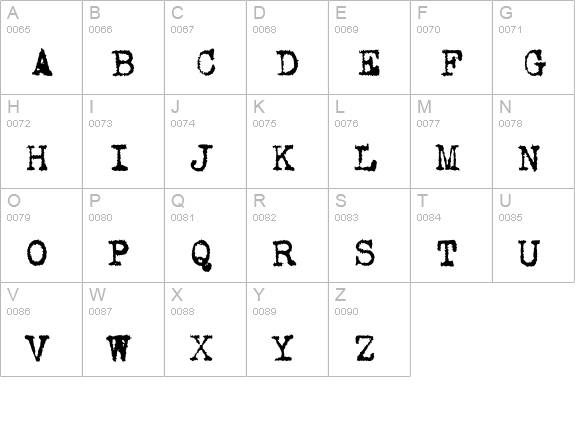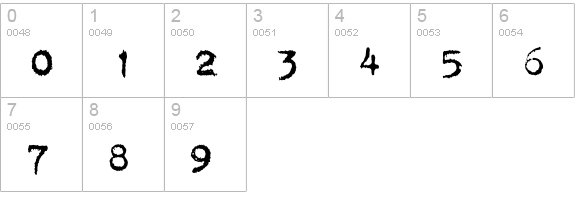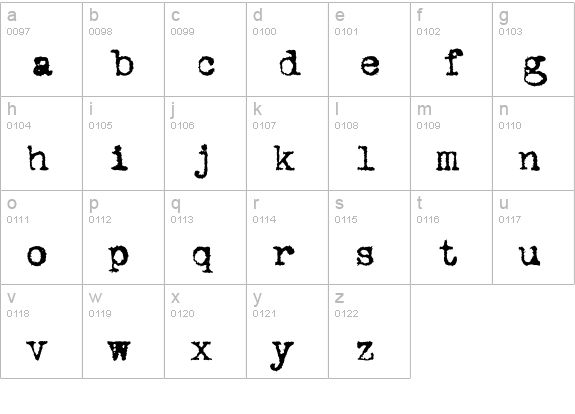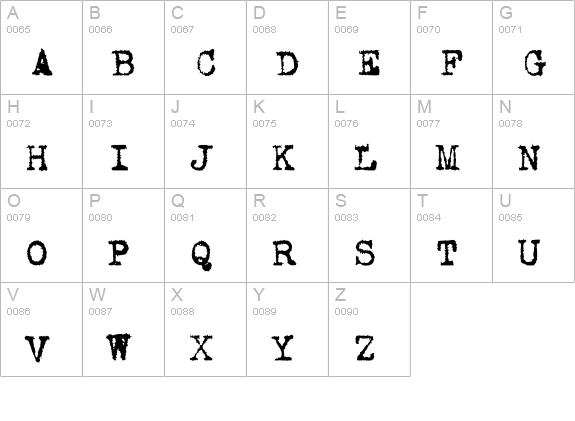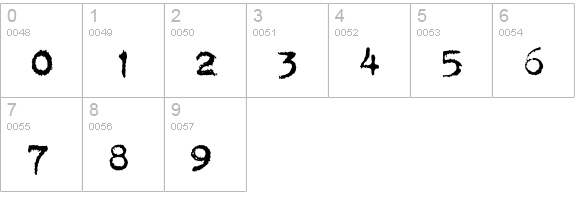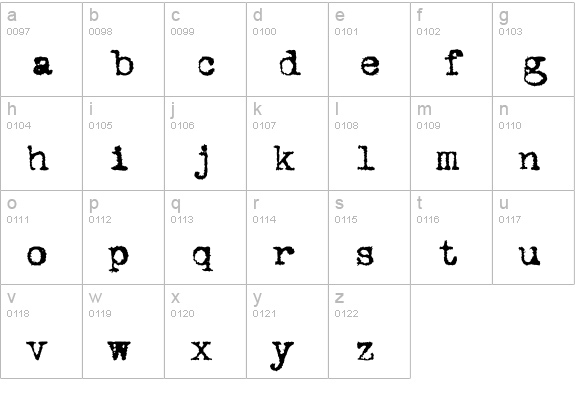
VTypewriter-Corona Font Details
VTypewriter-Corona font is a stunning typewriter-style typeface that exudes an air of vintage charm and timeless elegance. With its classic and authentic appearance, this font effortlessly captures the essence of a bygone era, making it perfect for projects that require a touch of nostalgia. This font features beautifully crafted letterforms that emulate the look and feel of a traditional typewriter, complete with slightly uneven edges and subtle imperfections that add character and depth. Its clean and legible design ensures readability across various mediums, making it suitable for both print and digital applications. The VTypewriter-Corona font is not only aesthetically pleasing but also highly versatile. It can be used for a wide range of design projects including logos, branding, invitations, posters, headlines, and more. Its timeless appeal makes it suitable for a variety of themes and styles, from vintage and retro to modern and minimalist. One of the best aspects of the VTypewriter-Corona font is that it is freely available to download at FontsMarket.com. This means that you can easily access and use this fantastic font without any hassle. Whether you are a professional designer or a casual user, you can enjoy the beauty and functionality of this font without any constraints. Overall, the VTypewriter-Corona font is a remarkable typeface that effortlessly combines vintage allure with modern usability. Its classic design and freely accessible nature make it a must-have for anyone looking to add a touch of elegance and nostalgia to their design projects. So, why wait? Head over to FontsMarket.com and download the VTypewriter-Corona font today!